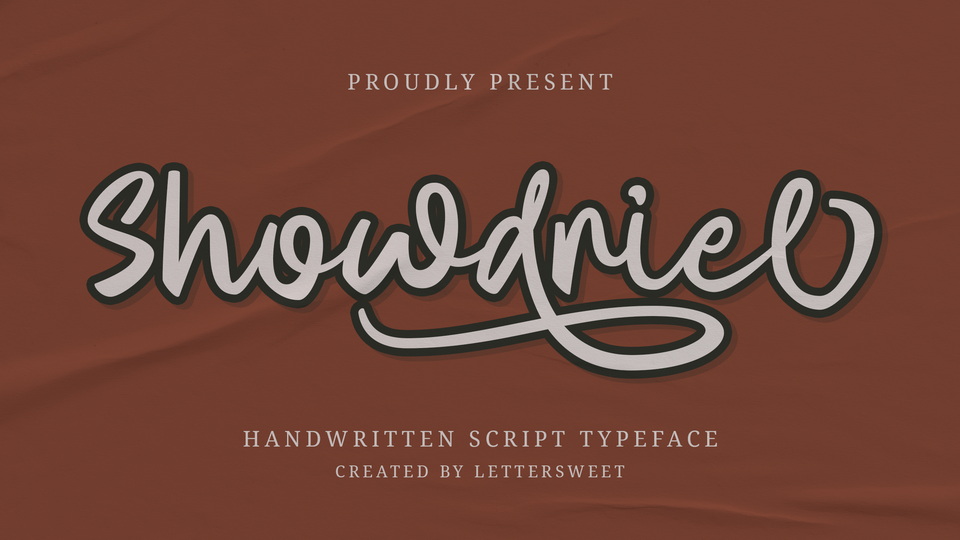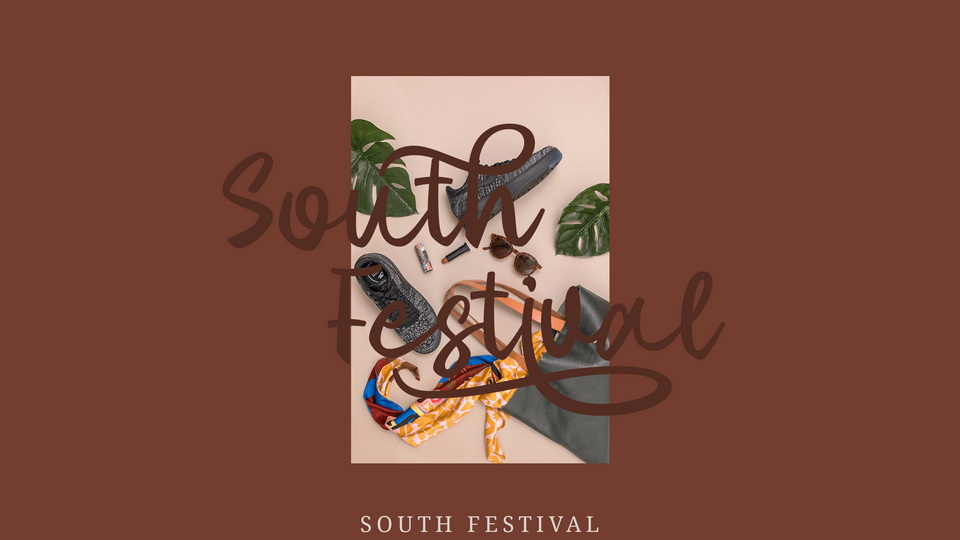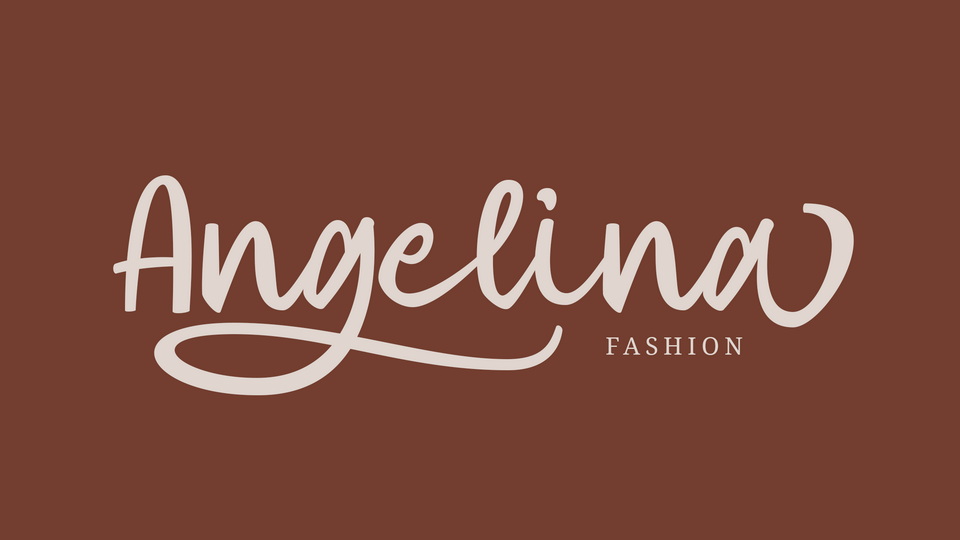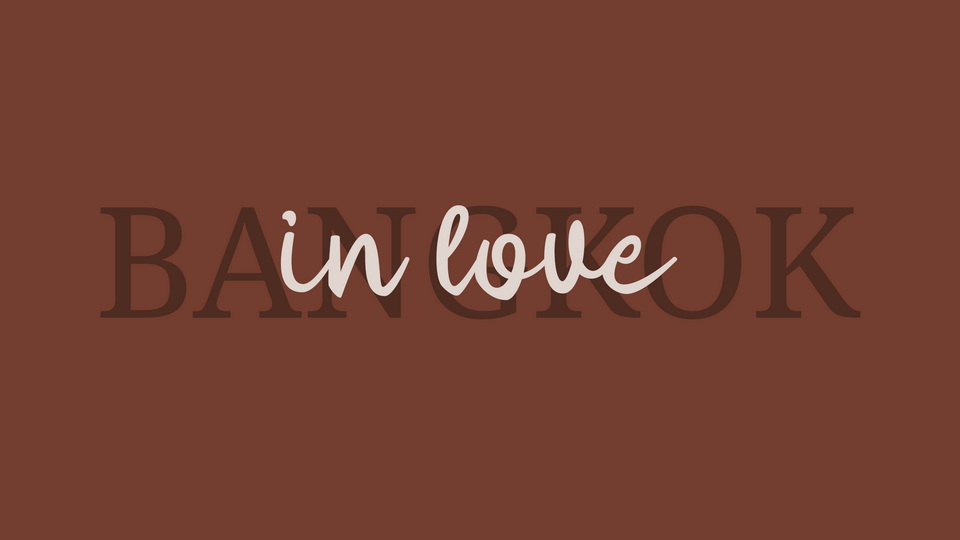
Showdriel is a beautiful and romantic script font. It looks stunning on wedding invitations, thank you cards, quotes, greeting cards, logos, business cards, and every other design which needs a lovely handwritten touch.